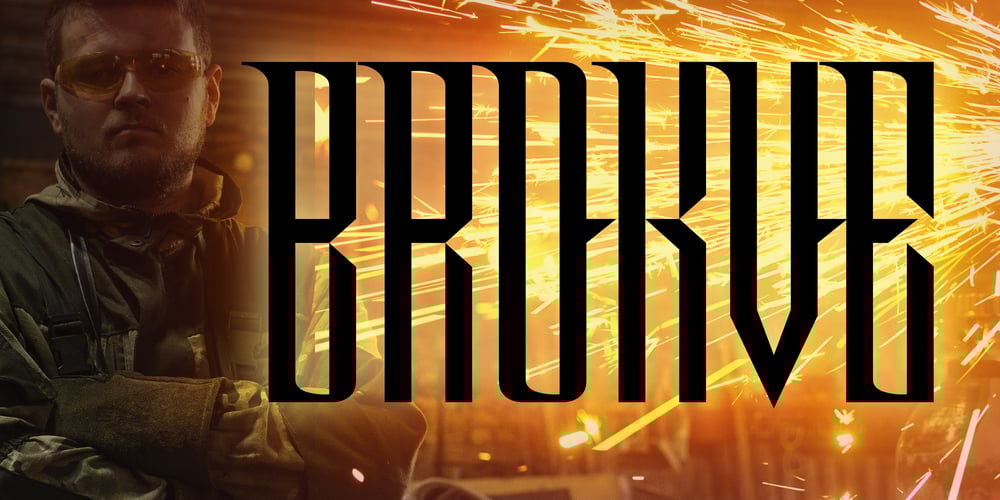
Brokve
Brokve font
Brokve Font Family was designed by Michael Kovacevich and published by MKGD. Brokve contains 1 styles and family package options. Brokve is a Croatian word used along the Dalmatian coast. It means “nails”, as in the; hammer and nails, variety. It’s tall thin strokes and jutting points give it a very spike-like appearance; suitable for any uses that are intense, jarring or just plain edgy.There is no lower case for Brokve as it is a display font. The upper case serves as both the upper and lower case letters.Brokve has a glyph count of 392 and supports the following languages;Afrikaans, Albanian, Asu, Basque, Bemba, Bena, Bosnian, Catalan, Chiga, Colognian, Cornish, Croatian, Czech, Danish, Embu, English, Esperanto, Estonian, Faroese, Filipino, Finnish, French, Friulian, Galician, German, Gusii, Hungarian, Icelandic, Indonesian, Irish, Italian, Kabuverdianu, Kalaallisut, Kalenjin, Kamba, Kikuyu, Kinyarwanda, Latvian, Lithuanian, Low German, Lower Sorbian, Luo, Luxembourgish, Luyia, Machame, Makhuwa-Meetto, Makonde, Malagasy, Malay, Maltese, Manx, Meru, Morisyen, North Ndebele, Norwegian Bokmål, Norwegian Nynorsk, Nyankole, Oromo, Polish, Portuguese, Romanian, Romansh, Rombo, Rundi, Rwa, Samburu, Sango, Sangu, Scottish Gaelic, Sena, Shambala, Shona, Slovak, Slovenian, Soga, Somali, Spanish, Swahili, Swedish, Swiss German, Taita, Teso, Turkmen, Upper Sorbian, Vunjo, Walser, and Zulu.